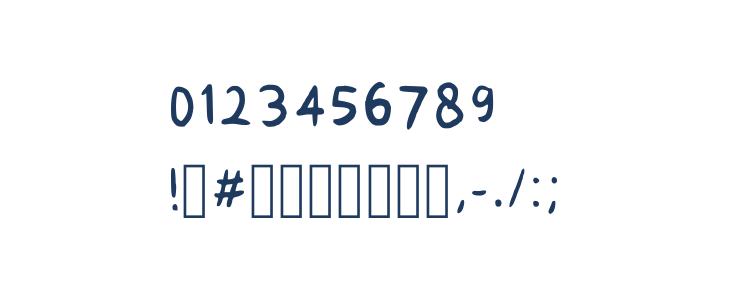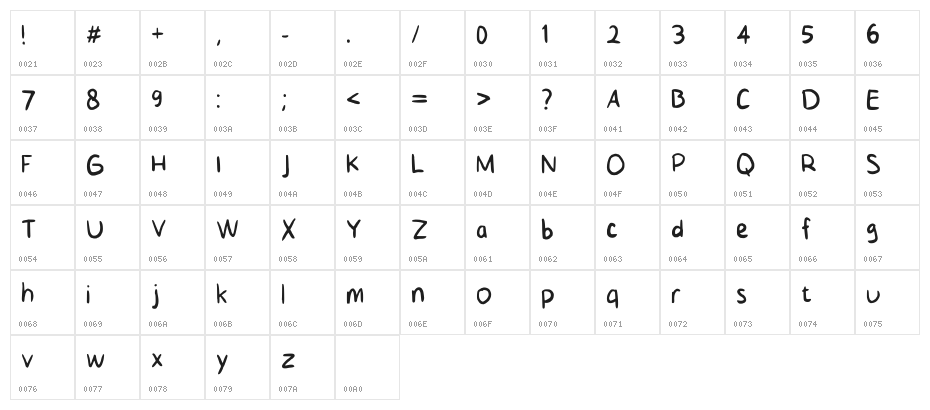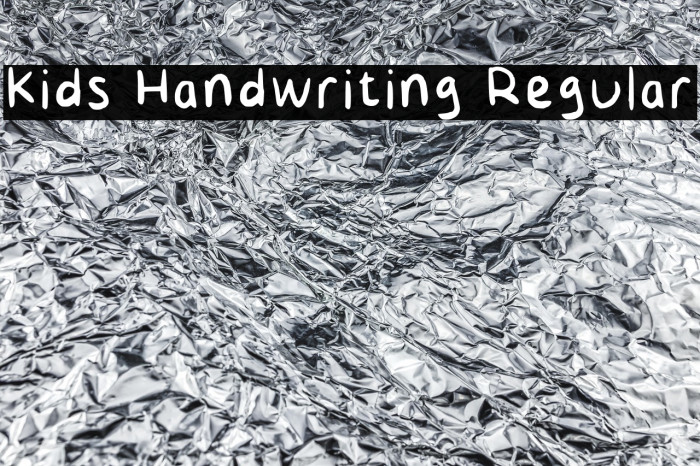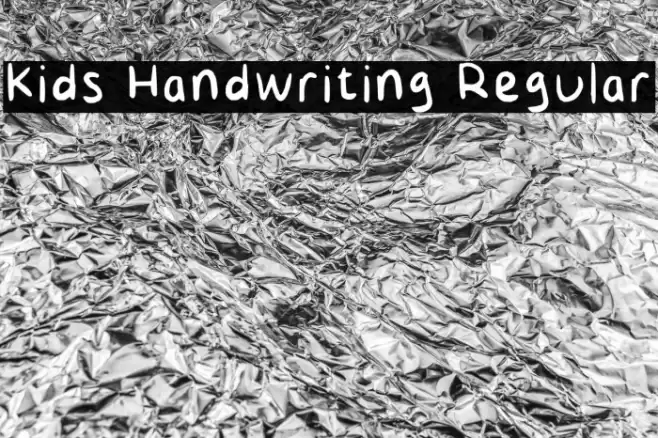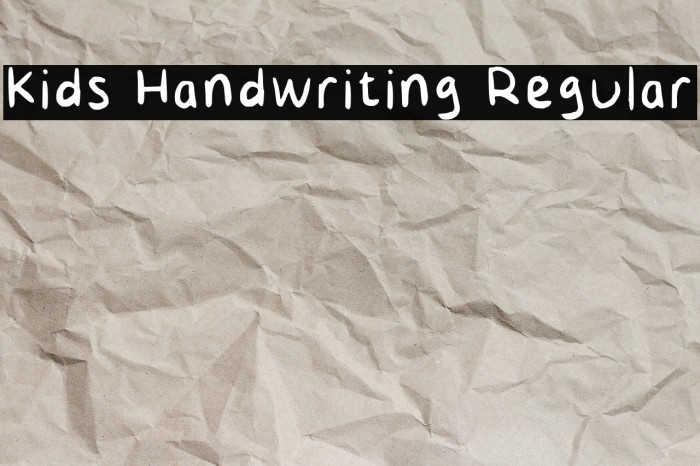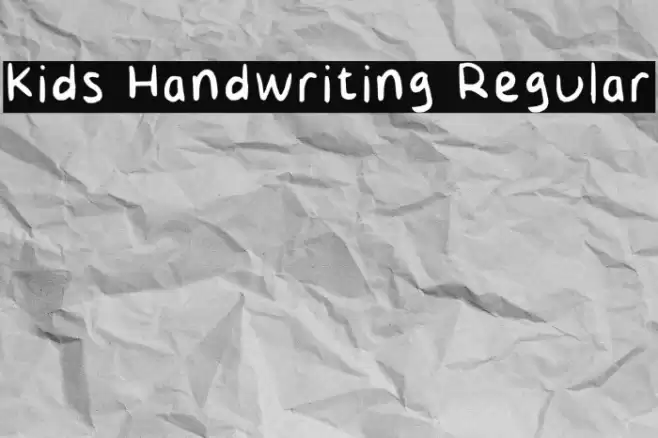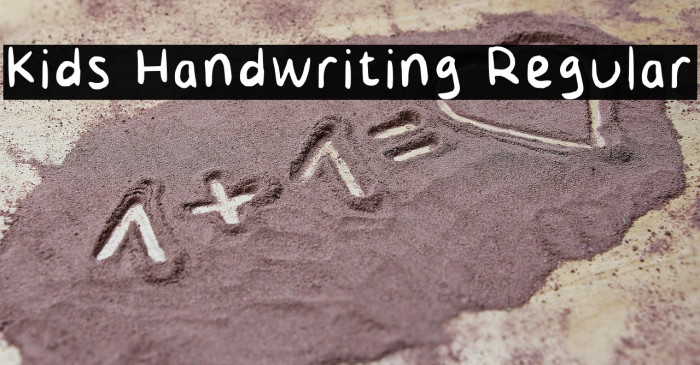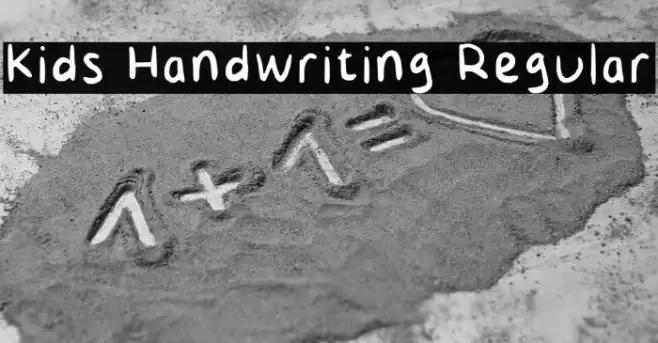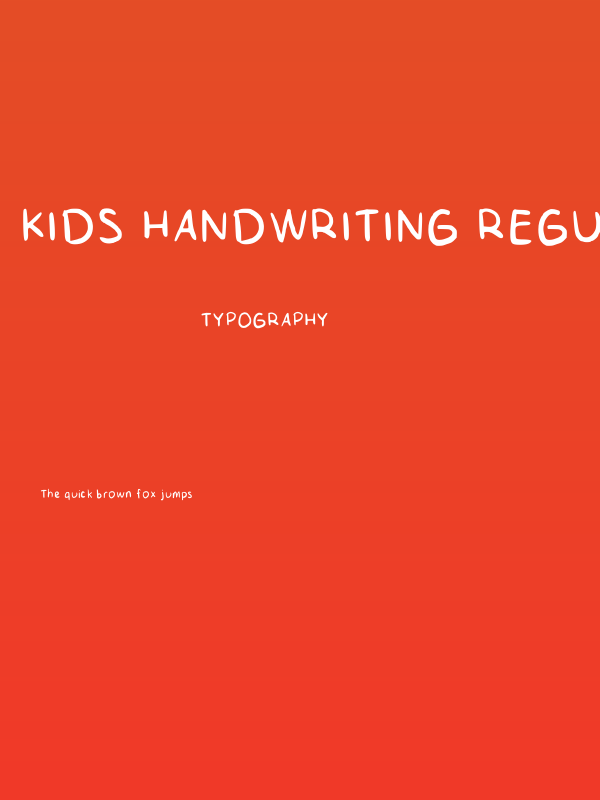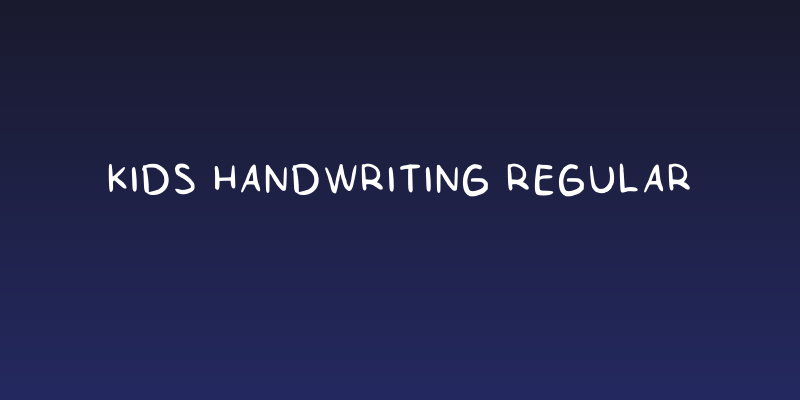
Kids Handwriting Regular Font
Kids Handwriting Regular Description
This font exudes a playful and youthful charm, reminiscent of a child's handwriting. The letters are rounded and slightly uneven, giving it an authentic, hand-drawn feel. Each character is distinct, with a casual and informal style that adds a touch of whimsy. The strokes are consistent in thickness, contributing to a cohesive look across the alphabet. This font is perfect for projects that require a friendly and approachable aesthetic, such as children's books, educational materials, or playful branding. Its simplicity and clarity ensure readability while maintaining a fun and engaging appearance.
| Overall Style | Playful, Casual |
| Use Case | Headlines, Informal text, Children's materials |
| Proposed Projects | Ideal for children's books, educational materials, playful branding, and casual invitations. |